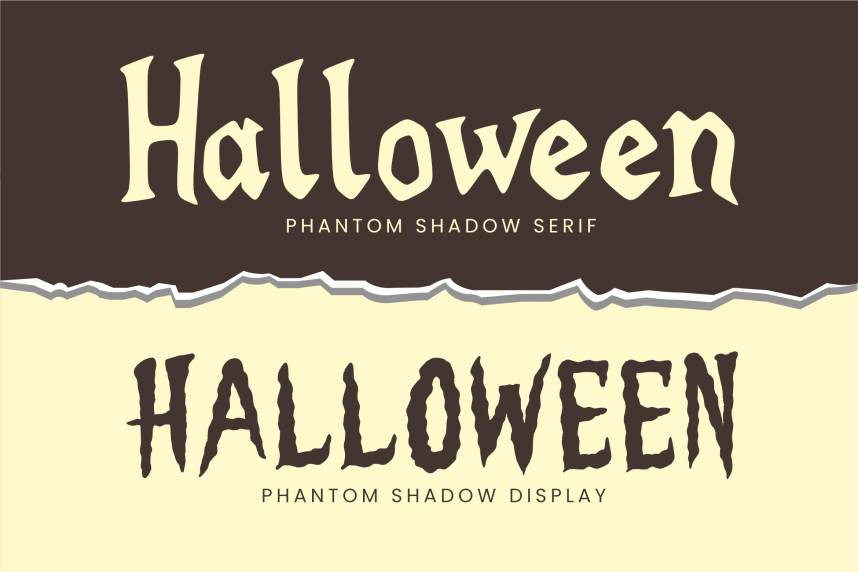
Phantom Shadow Serif
Phantom Shadow Serif is a spooky Halloween font duo designed to bring eerie charm and bold style to your projects. Perfect for haunted party invitations, creepy posters, scary movie titles, logos, and seasonal crafts, the Phantom Shadow typeface combines playful yet chilling vibes. With jagged strokes and ghostly details, Phantom Shadow adds instant fright-night magic to any design.